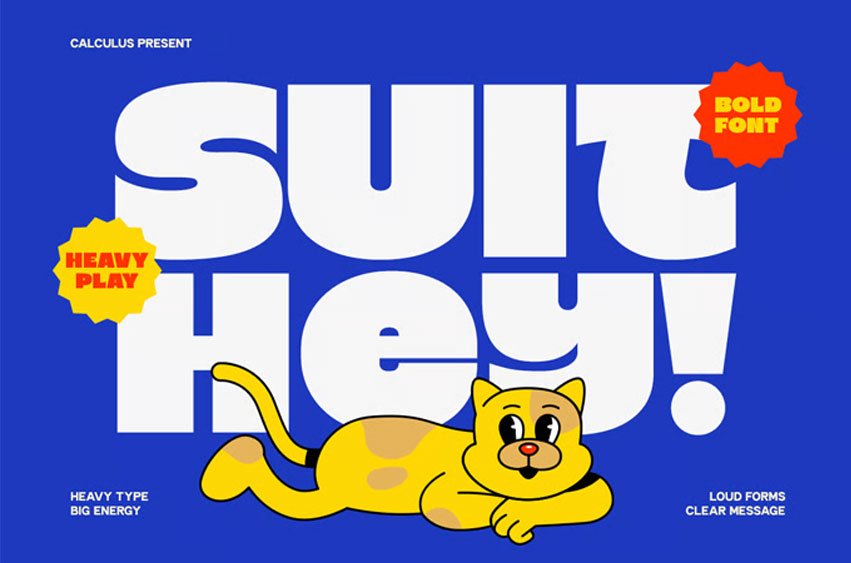
Suit Hey Font Modern Bold Display Sans is a powerful display typeface crafted to deliver bold impact with a clean and modern attitude. Designed with thick strokes, confident structure, and balanced proportions, it creates a strong visual presence that stands out effortlessly across various design applications.
With its bold construction and contemporary form, CC Suit Hey brings a dynamic and assertive typographic voice. The letterforms are built to maximize readability while maintaining a striking appearance, making it ideal for large-scale compositions and attention-grabbing headlines.
Perfect for branding, posters, editorial titles, packaging, logos, and digital interfaces, CC Suit Hey performs exceptionally well in modern design environments. Its clean geometry and bold weight ensure clarity and consistency, while its strong character adds personality and visual strength to every project.
The combination of modern structure, bold presence, and refined simplicity makes CC Suit Hey suitable for creative works that demand impact, clarity, and a professional edge.
Features :
- Modern Bold Display Style
- Strong and Confident Character
- Clean Geometric Construction
- High Visual Impact
- Optimized for Headlines & Large Typography
- Suitable for Branding, Poster, Logo, Packaging
- Works for Print and Digital Design
- Distinctive and Contemporary Appearance
CC Suit Hey delivers bold clarity — a modern display sans designed to make your visuals strong, clean, and impactful.